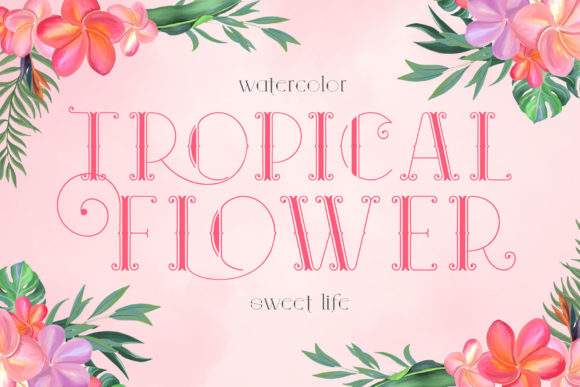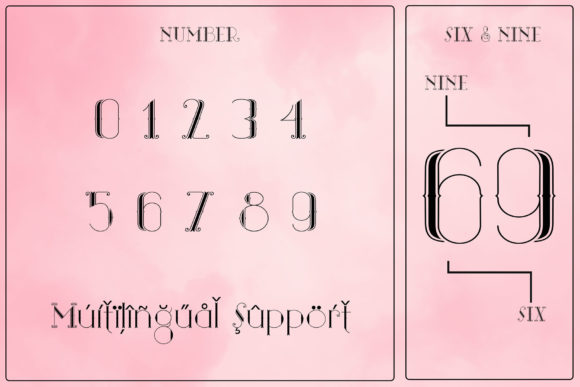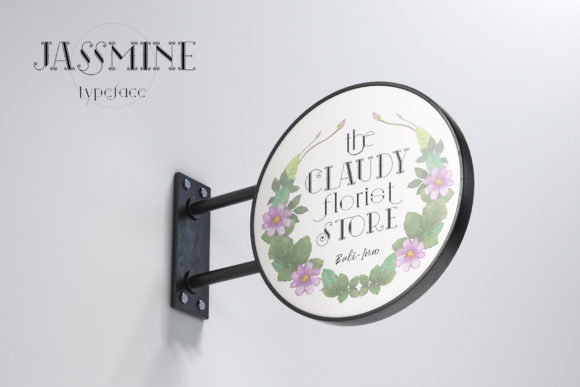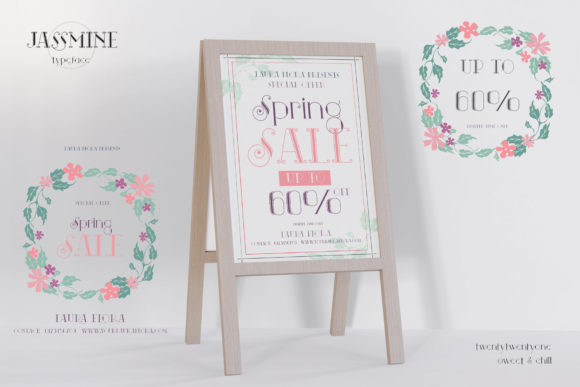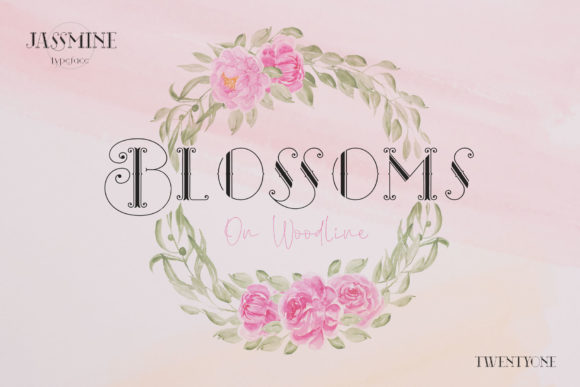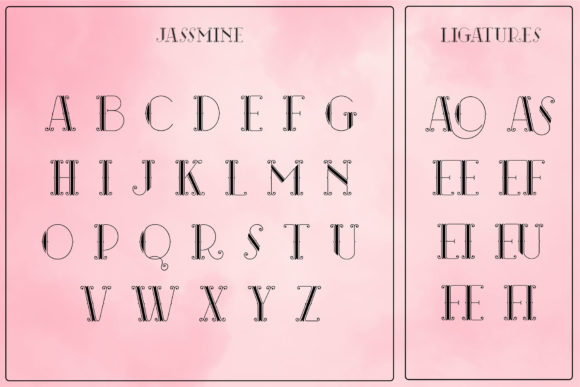
Introduction to Jassmine Font
Have you ever stumbled upon a font that sparks creativity and transports you to a world of romance and elegance? For many designers, this magical moment is what makes their projects truly special. As I was working on a wedding invitation design, I came across the Jassmine Font, and I knew I had found the perfect match. Its dainty and unique design elements added a touch of whimsy and sophistication that elevated the entire design.
As a valuable design resource, the Jassmine Font is perfect for creative projects that require a high-quality, eye-catching font. With its transparent background, it’s easy to use and customize, making it a must-have for any designer’s toolkit. Whether you’re working on a love letter, wedding invitation, or any other design project, the Jassmine Font is sure to impress. In this article, we’ll dive deeper into the world of Jassmine Font and explore its features and benefits.
Key Features of Jassmine Font
- High-quality font with a unique, elegant design perfect for creative projects.
- Features a transparent background, allowing for seamless integration with any design or image.
- Designed with precision and attention to detail, ensuring a crisp and clear display at high resolutions.
- Comes in a range of sizes, from small to large, to accommodate various design needs and requirements.
- Excellent choice for designers, artists, and writers looking for a stylish and professional design resource.
Honest Review: Jassmine Font
As a designer, I’m always on the lookout for high-quality design resources to enhance my creative projects. Recently, I stumbled upon the Jassmine Font, and I’m excited to share my thoughts on this free download.
What works well about the Jassmine Font is its elegant and feminine aesthetic, making it perfect for projects that require a touch of sophistication. ✨ The font comes with a transparent background, which gives me the flexibility to layer it with other design elements without worrying about a distracting background.
The Jassmine Font also boasts a wide range of weights, from light to bold, allowing me to customize my designs to suit various needs. Additionally, the font is highly legible, making it ideal for body text and headings.
However, I do have a few minor quibbles with the font. ⚠️ For instance, some of the characters may not be as refined as I would like, and the font’s compatibility with certain software may be a bit finicky. Nevertheless, these limitations don’t detract from the overall quality of the font.
Overall, I’m impressed with the Jassmine Font and would recommend it to designers seeking a high-quality, free download for their creative projects.
- Elegant and feminine aesthetic
- Wide range of weights (light to bold)
- Highly legible
To get the most out of the Jassmine Font, use it on a transparent background to create a sleek and modern design. You can also combine the font with other design elements to add depth and interest to your project.
The Jassmine Font is perfect for creative projects such as logos, brochures, and social media graphics. Its high-quality design and versatility make it an ideal choice for designers and non-designers alike.